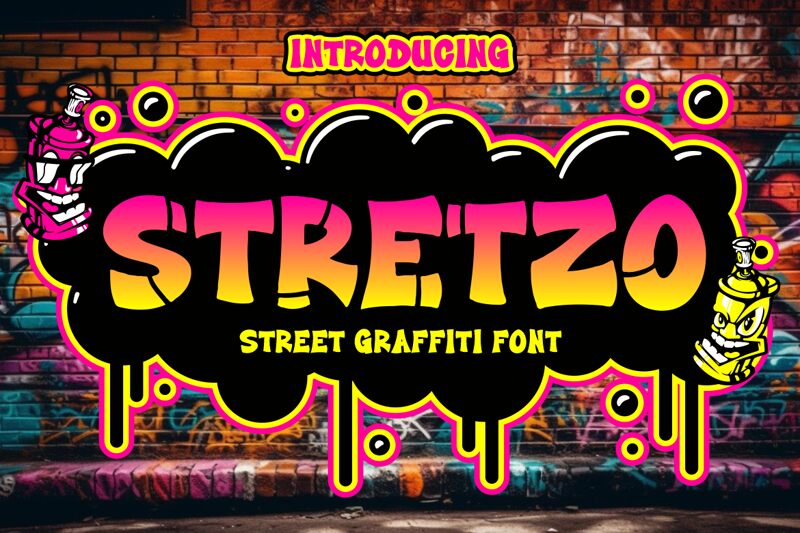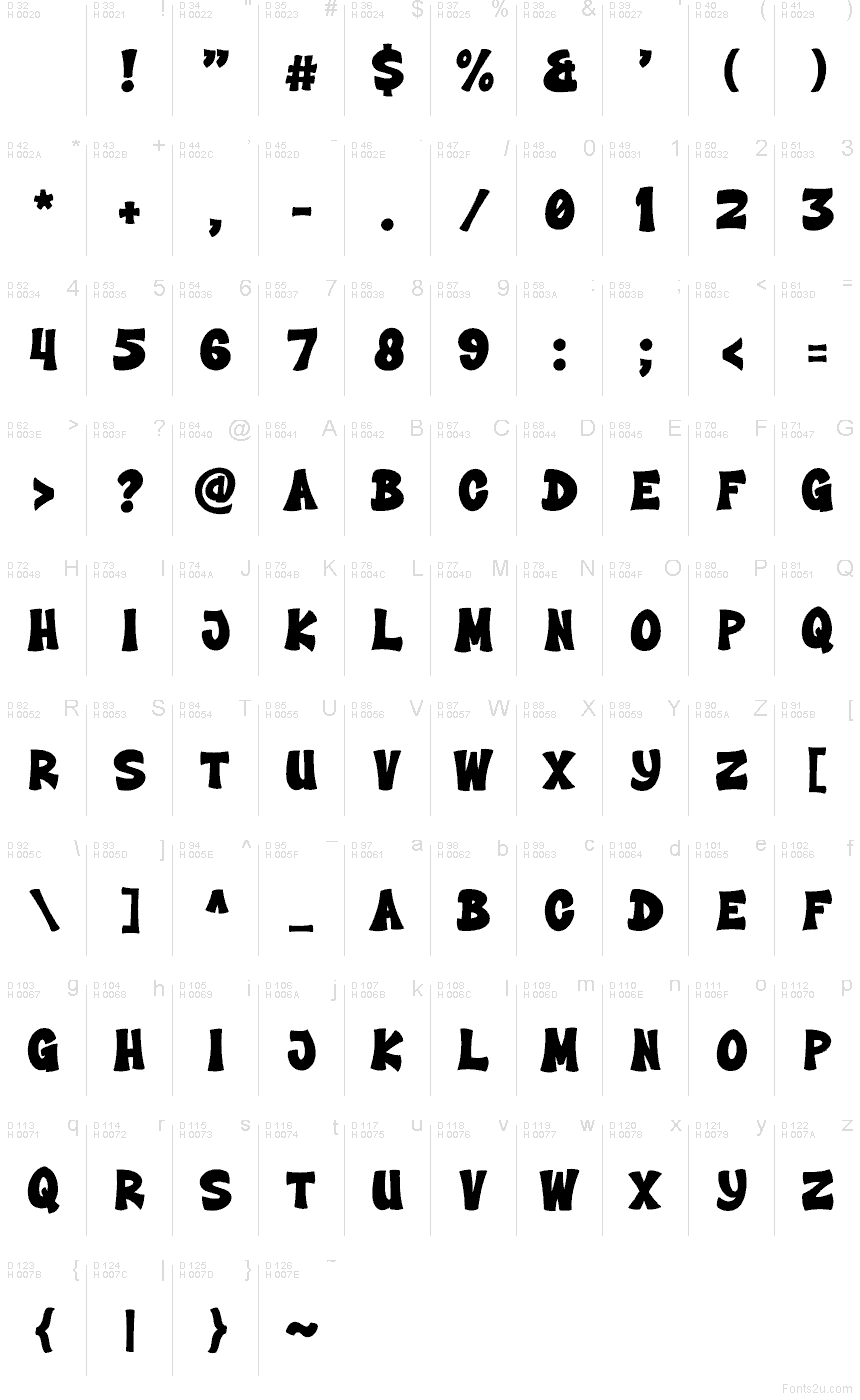
Stretzo
Stretzo by Shanaf Studio is a free graffiti caps font with a loud, hand-painted bounce. The letters feel puffed and slightly warped, with broad blocky shapes, soft corners, and an uneven rhythm that gives the whole set a casual street-sign energy rather than a polished marker look.
It fits music flyers, skate graphics, sticker designs, poster headlines, and bold social cover lines where a free font needs quick attitude without turning intricate. The chunky caps also work for title cards and short branding hits, because their wobble and weight make even a brief word feel physical and improvised.